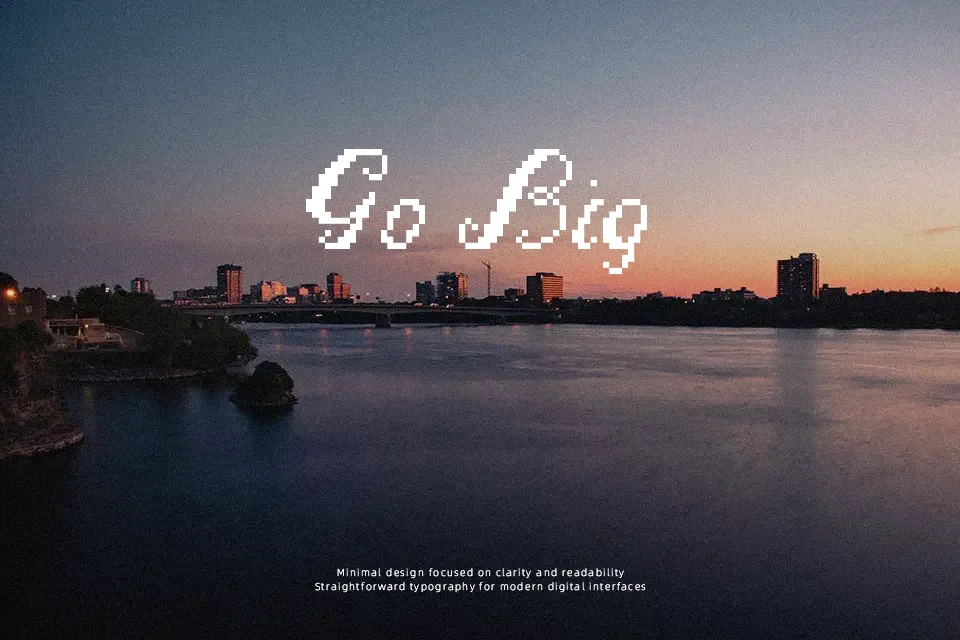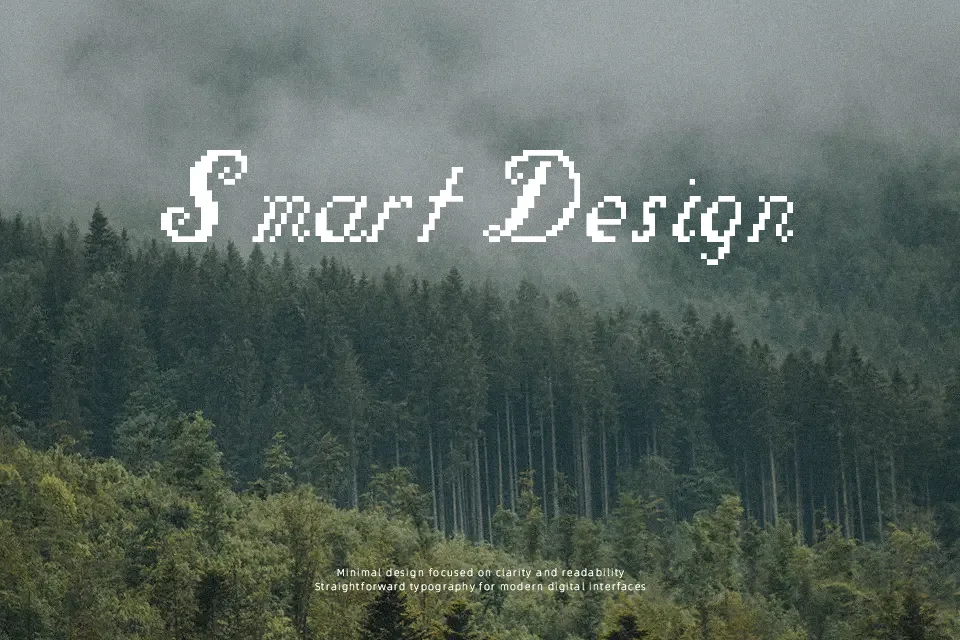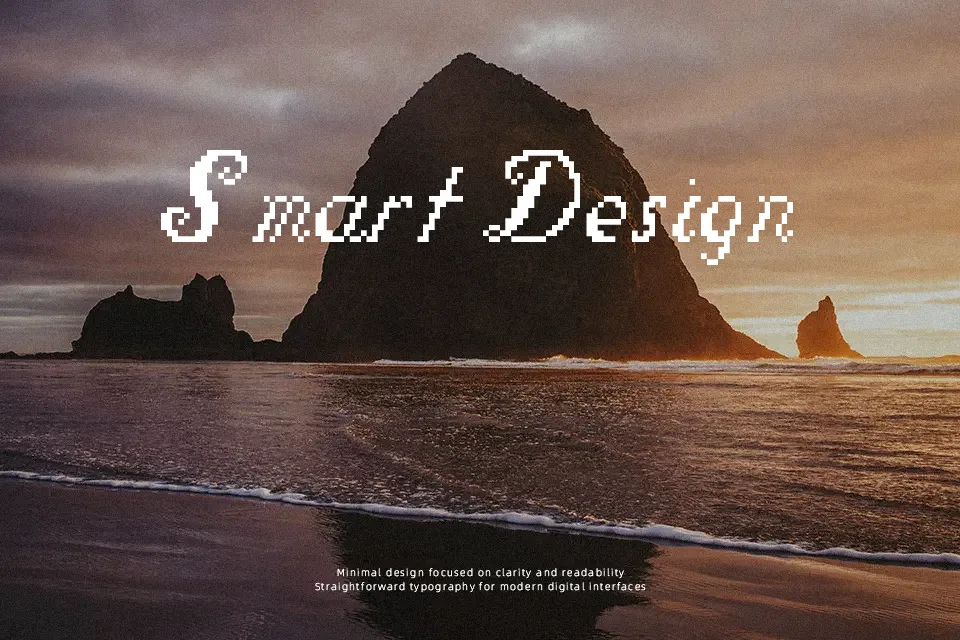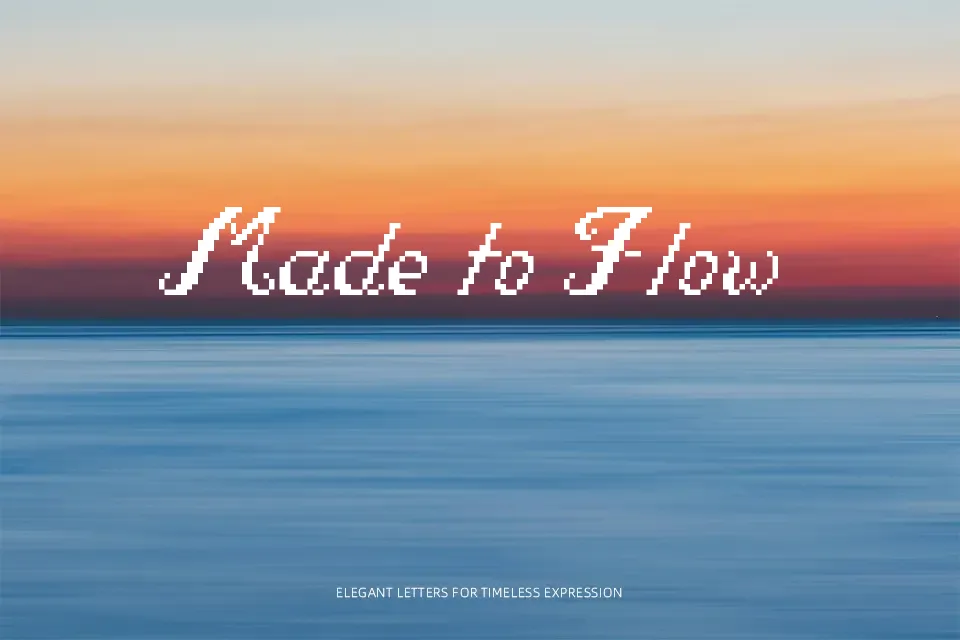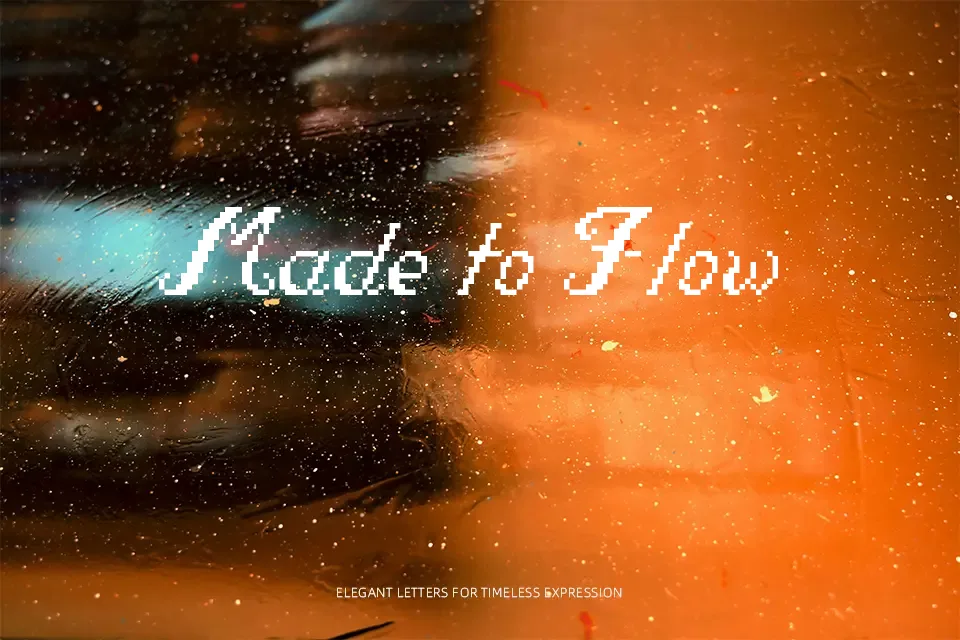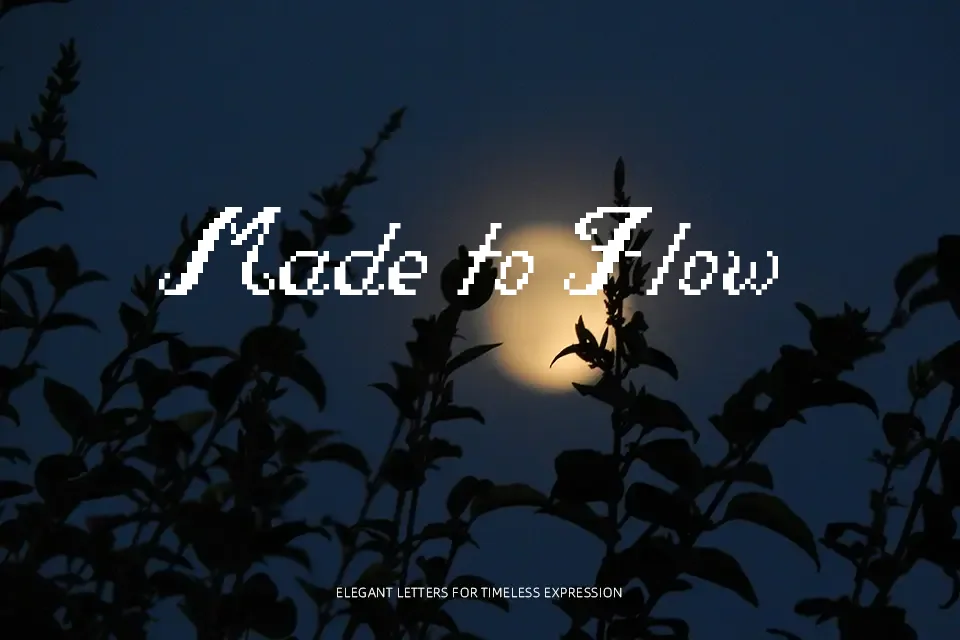
Pixel Script Font
Designed by ColorSwitchFan25
Built on a pixel grid, this font uses square, modular strokes that follow a script-like path rather than conventional handwritten curves. Letterforms carry low stroke contrast with angular terminals and consistent character width across most glyphs. Spacing is structured and predictable, which helps at headline sizes but creates a stiff rhythm in extended text. It reads cleanly on low-resolution screens and suits retro-themed digital projects, pixel art game UI, and creative social media graphics. The script influence adds a sense of movement, though it never fully escapes its grid origins. One real limitation: below 24px, the pixel construction collapses into noise and becomes illegible — not suited for body copy or fine print.
– retro game UI and menu screens
– pixel art project logos and titles
– indie game branding and promotional graphics
– social media headers with nostalgic or lo-fi aesthetics
– body text or long-form reading content
– corporate or professional print materials
– small-size labels or captions under 20px
– high-contrast editorial layouts requiring elegant letterforms
Perfect for gaming, headline, and logo, with a creative and display style.